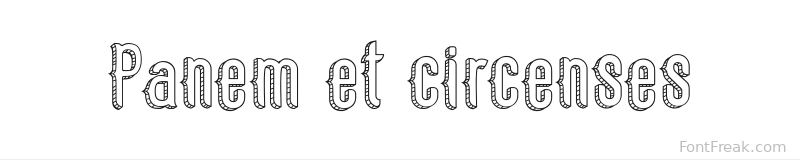
Panem et circenses
The "Panem et circenses" font, designed by Galdino Otten Fonts in 2018, is a captivating display typeface that exudes a vintage charm perfect for a variety of creative projects. This font is characterized by its bold, rounded letterforms that feature a unique decorative outline, providing a sense of playfulness while maintaining readability. The stroke weight is consistent and robust, making it suitable for eye-catching headlines and titles. The contrast between the outlined letters and the inner space creates an intriguing visual dynamic, enhancing its overall appeal.
This font is ideal for a range of applications, including wedding invitations where a touch of whimsy is desired, movie posters that need to grab attention with a bold statement, and restaurant menus that aim to evoke a sense of fun and creativity. Additionally, it's perfect for promotional materials, such as flyers and social media graphics, where a distinctive look can help capture interest. The Panem et circenses font free download offers an accessible option for graphic designers, small business owners, and content creators looking to add a unique flair to their work.
Targeting a diverse audience, this typeface invites graphic designers seeking to enhance their projects with a fresh aesthetic, as well as small business owners looking to stand out in a competitive market. Content creators can also benefit from its whimsical yet professional design, making it an excellent choice for various digital and print media.
What sets the Panem et circenses font apart is its perfect blend of fun and functionality. Its distinctive style not only draws the eye but also communicates a sense of creativity and joy, making it an excellent choice for anyone looking to leave a memorable impression with their typography.